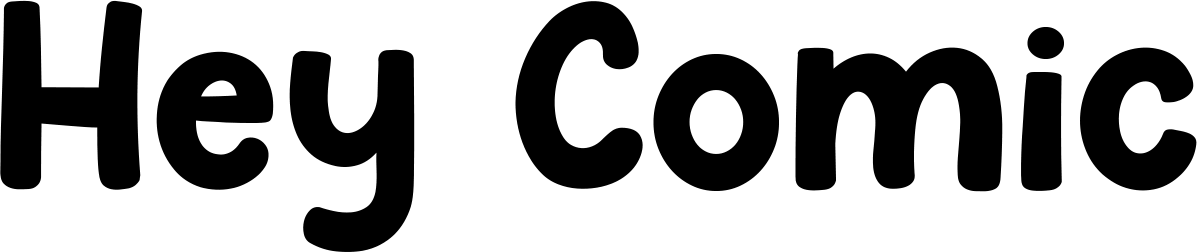
Hey Comic Font
If you want to make a simple and friendly headline, Hey Comic might be what you need. This one is a cartoon font with a big and bold style that gives an informal tone to your text.
You can use it for any game, cartoon, movie title, or comic text. The only missing piece in this collection is a zero on its numeric set.